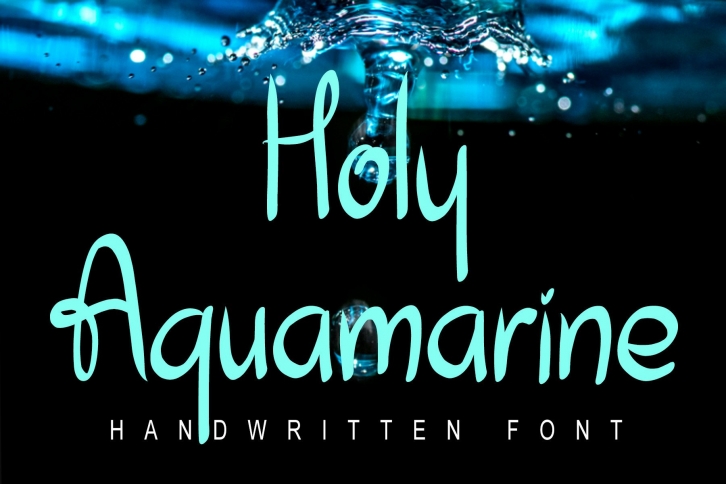
Holy Aquamarine is a sweet and friendly handwritten font. Its natural and unique style makes it incredibly fitting to a large pool of designs. The only limit is your imagination!